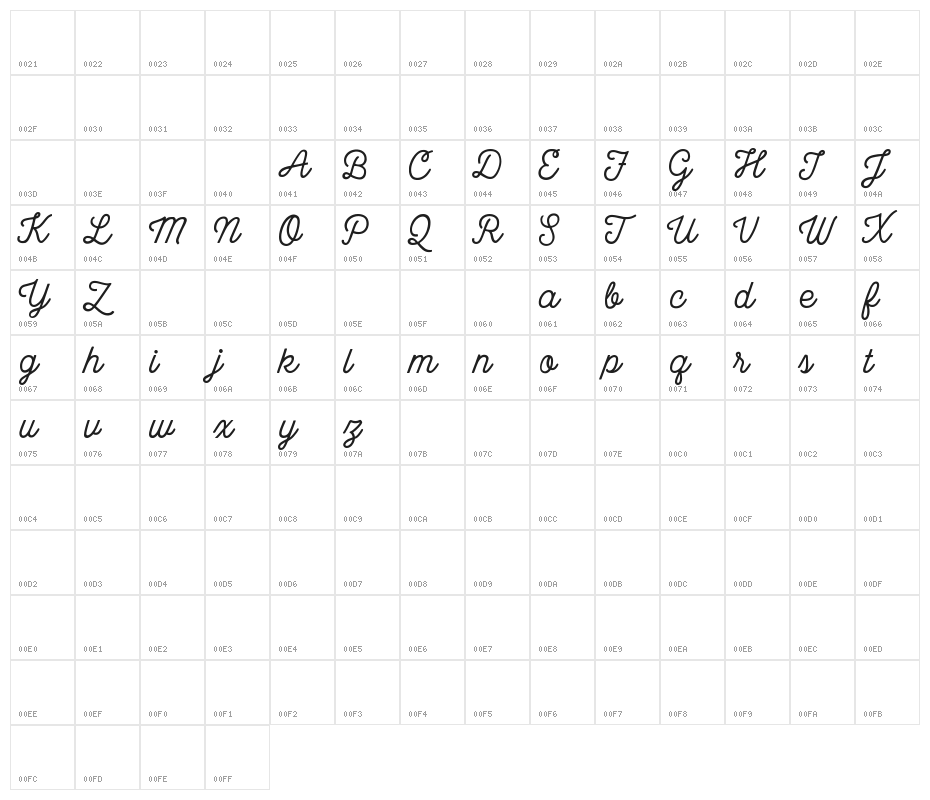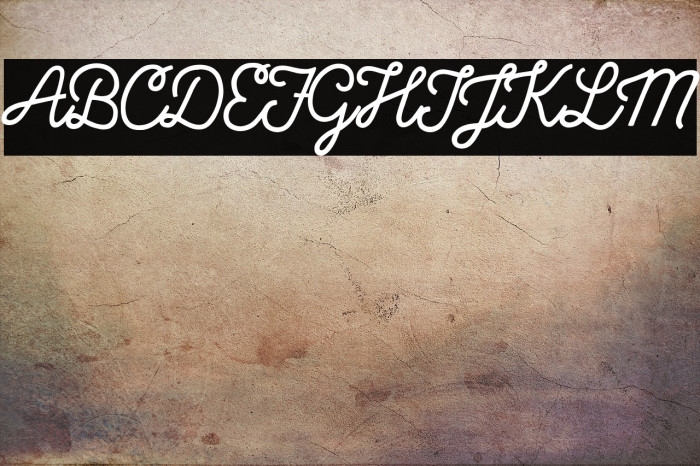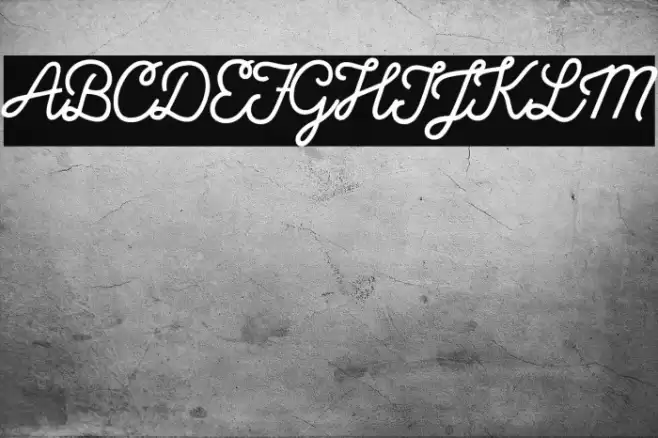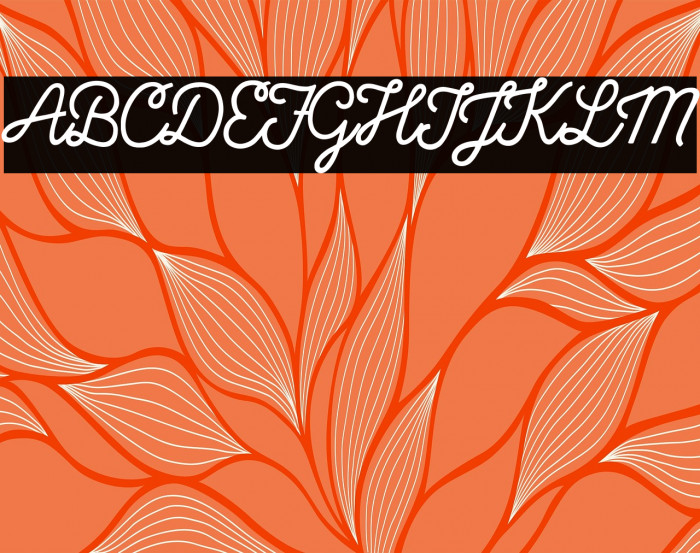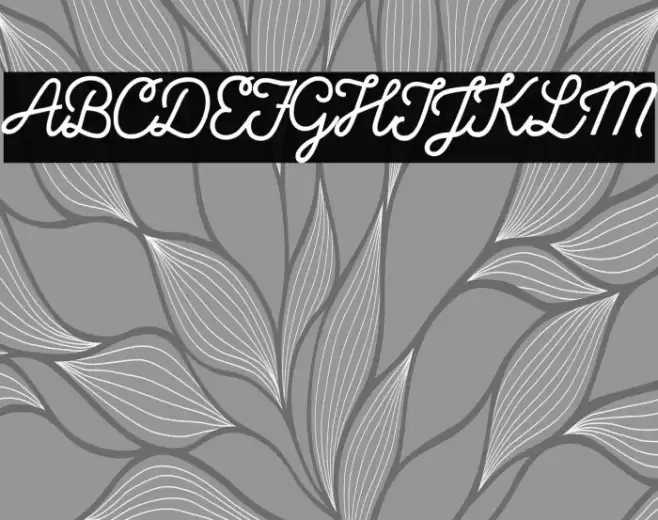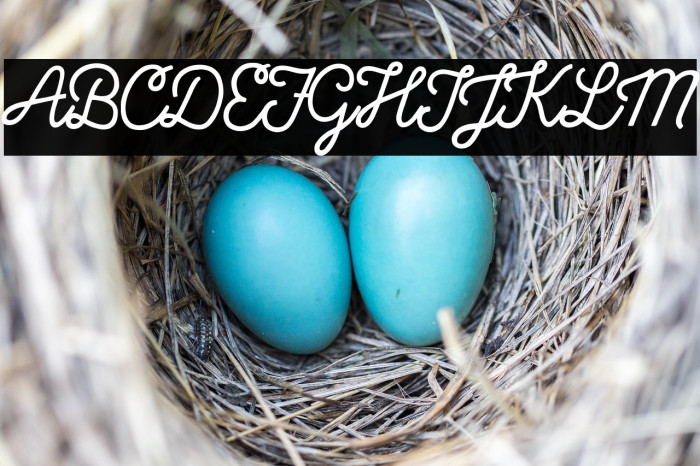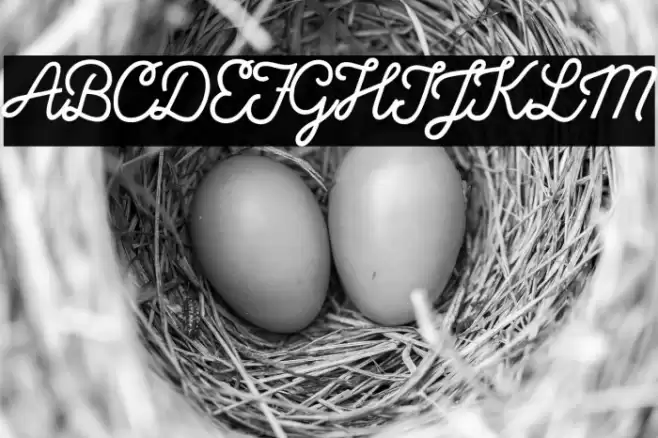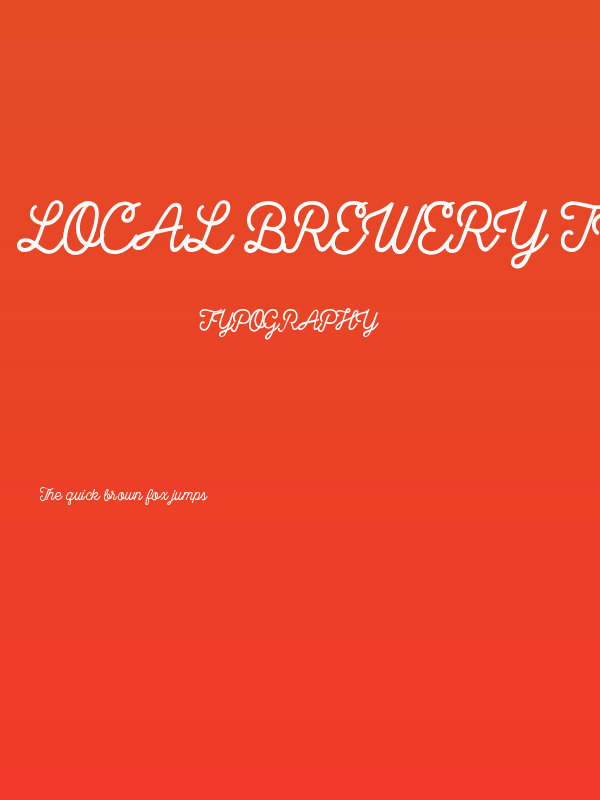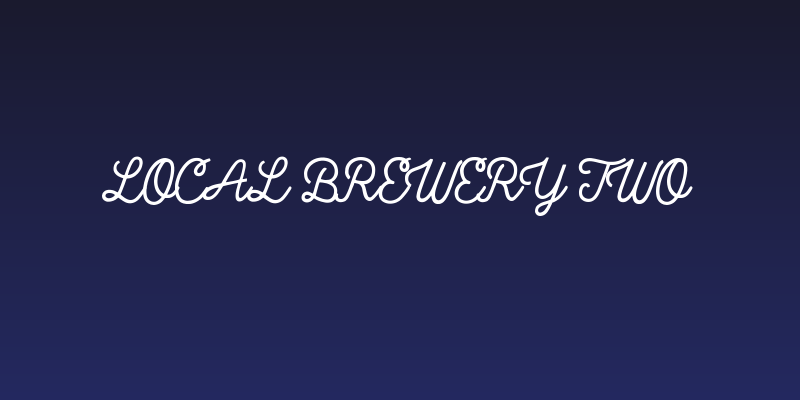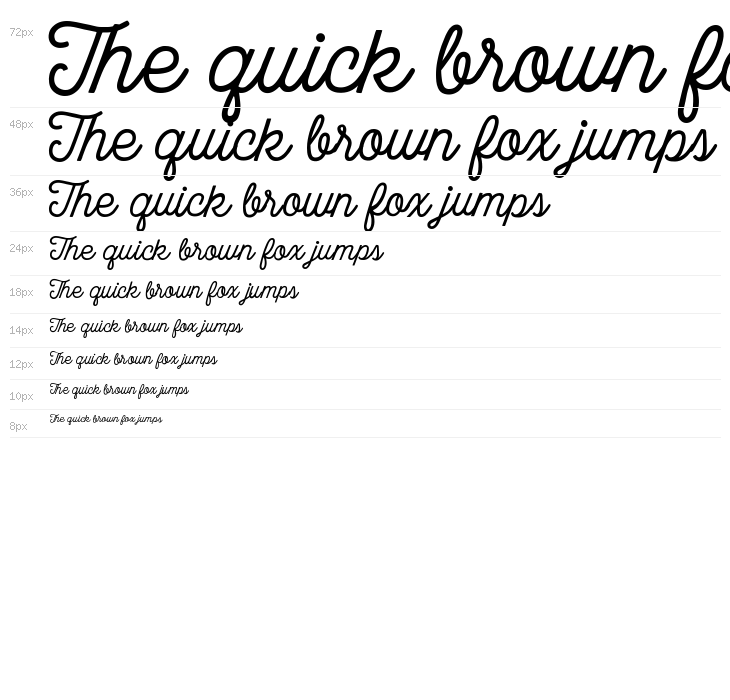
Local Brewery Two Font
Local Brewery Two Description
This font features a flowing, cursive style that mimics elegant handwriting. The letters are interconnected, creating a seamless and continuous look. The uppercase characters are slightly larger and more ornate, while the lowercase letters maintain a consistent height and style. The strokes are smooth and rounded, giving the font a friendly and approachable feel. The numbers and special characters follow the same cursive style, ensuring uniformity across all elements. This font is ideal for projects that require a personal touch or a sense of sophistication.
| Proposed Projects | Ideal for wedding invitations, greeting cards, personal branding, and elegant signage. |